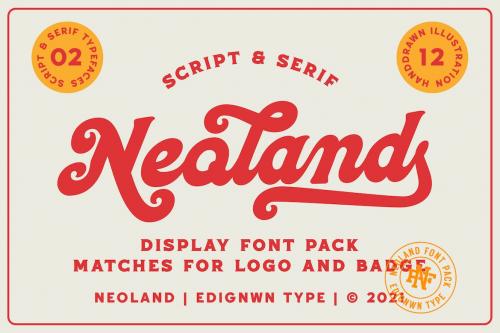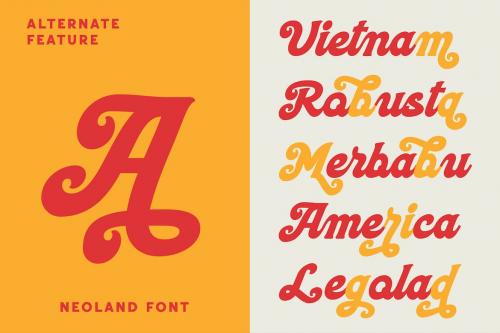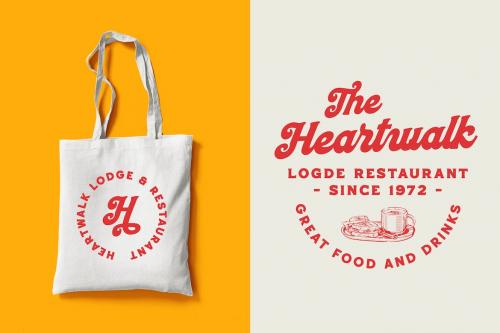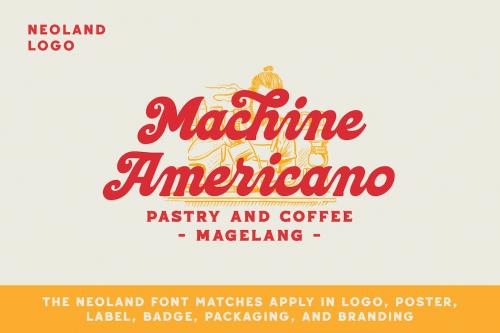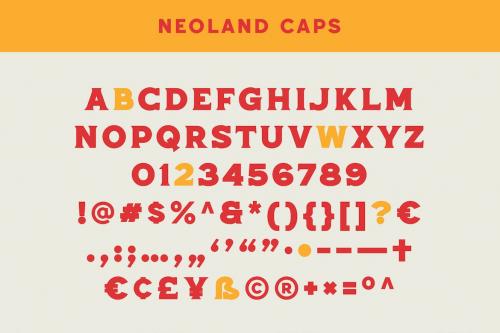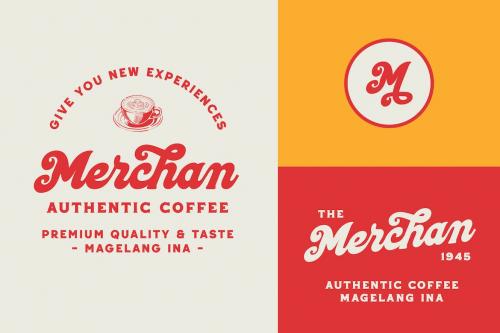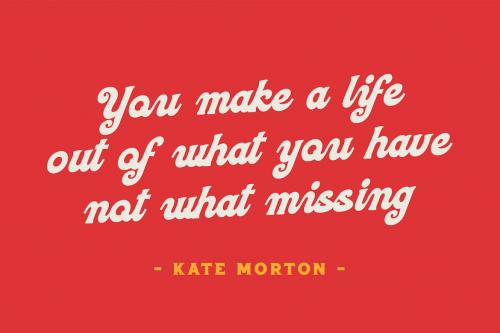
Neoland - 展示字体
Neoland - Display Font
The font collection is called **"Neoland"**, it is a display font for logotype and badge. These collections contain script and serif font. This script font includes alternates and ligatures. The Neoland matches apply in some designs such as the logo, poster, label, badge, packaging, branding, quotes and more custom design.
**Neoland features :**
- Uppercase, lowercase, numeral, symbol, punctuation, alternate (ss01-ss07), swash and ligature in script font
- All-caps, numeral, symbol and punctuation in serif font
- Multilingual
- 12 hand-drawn illustrations in dingbat